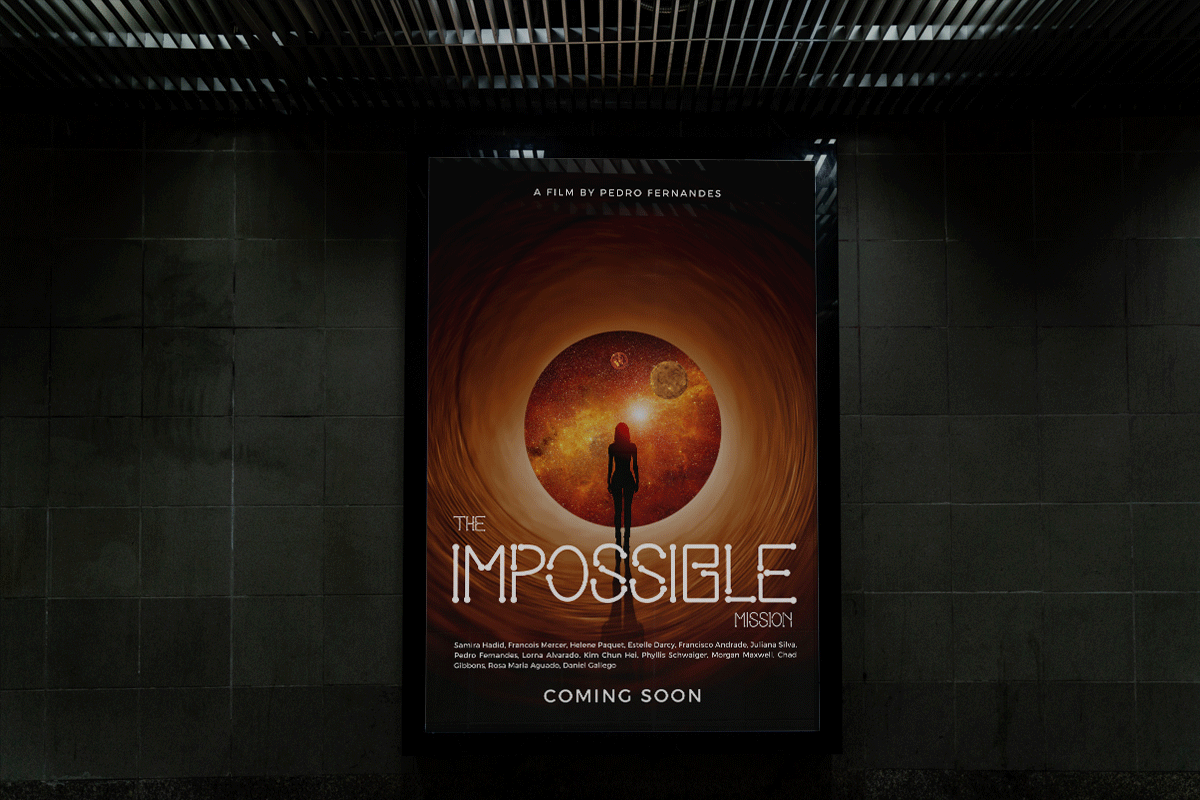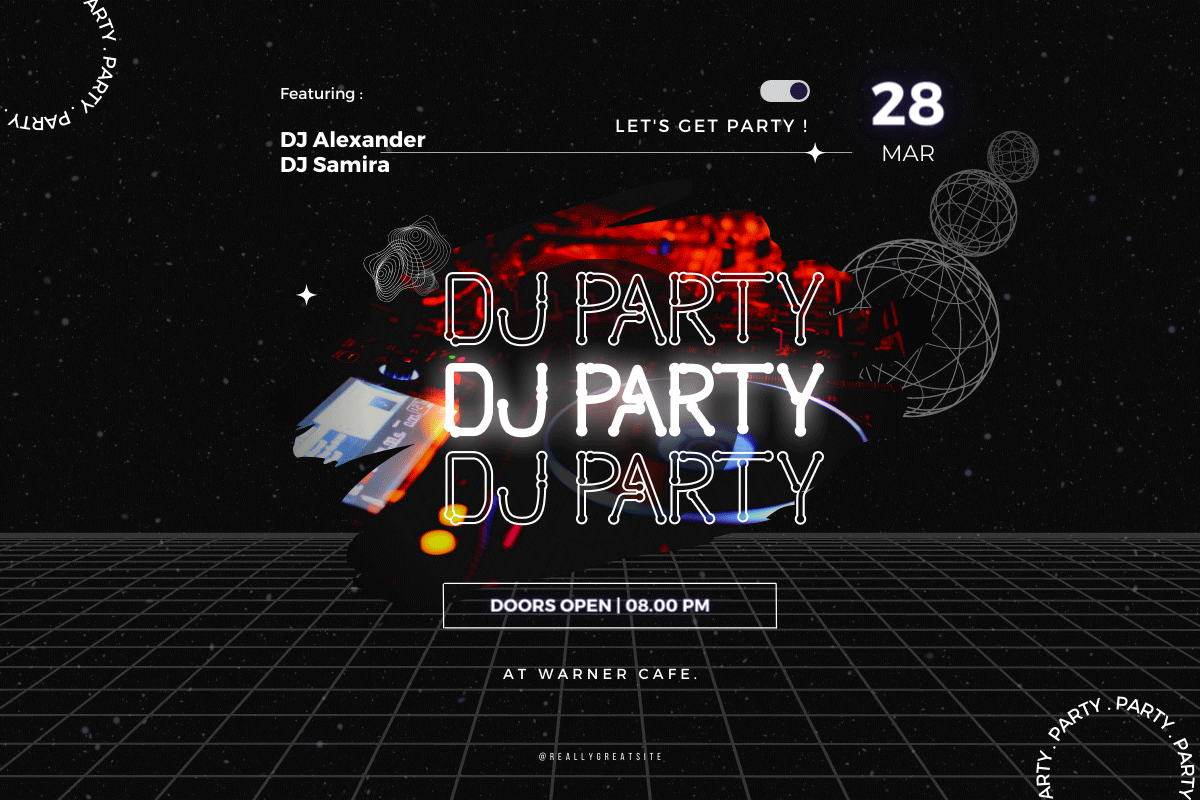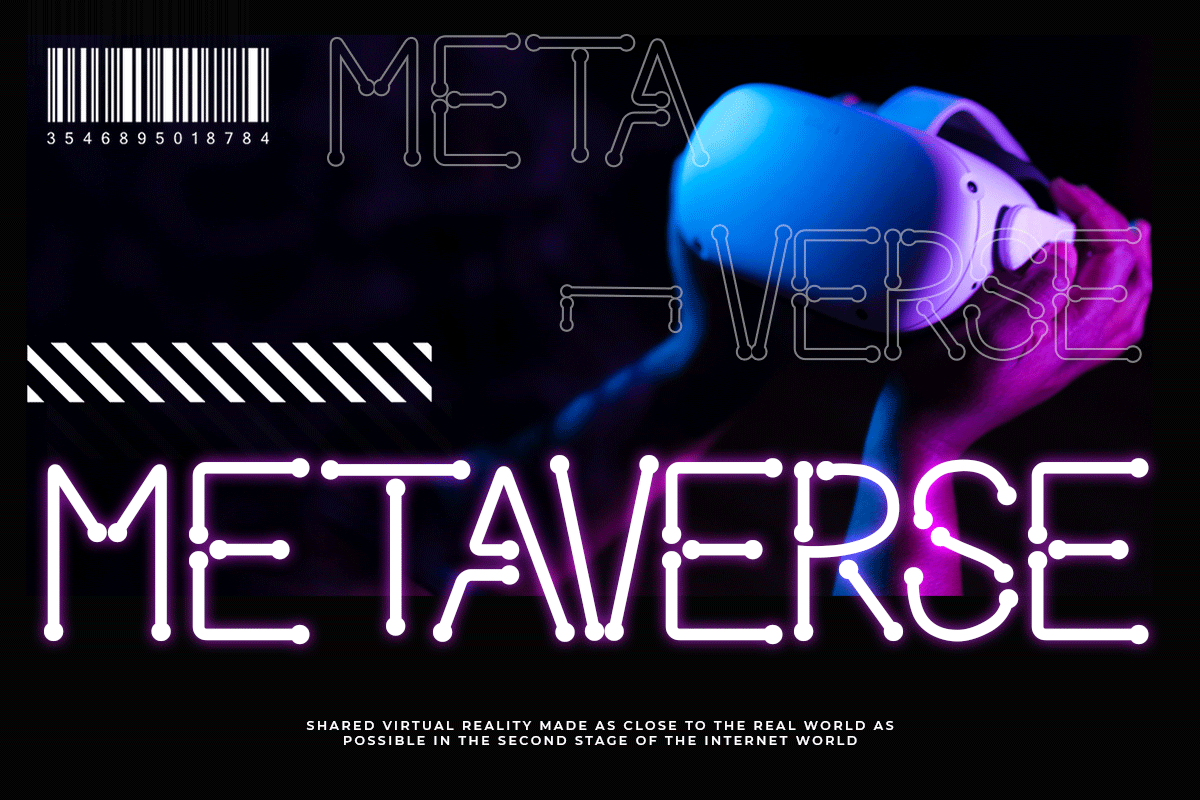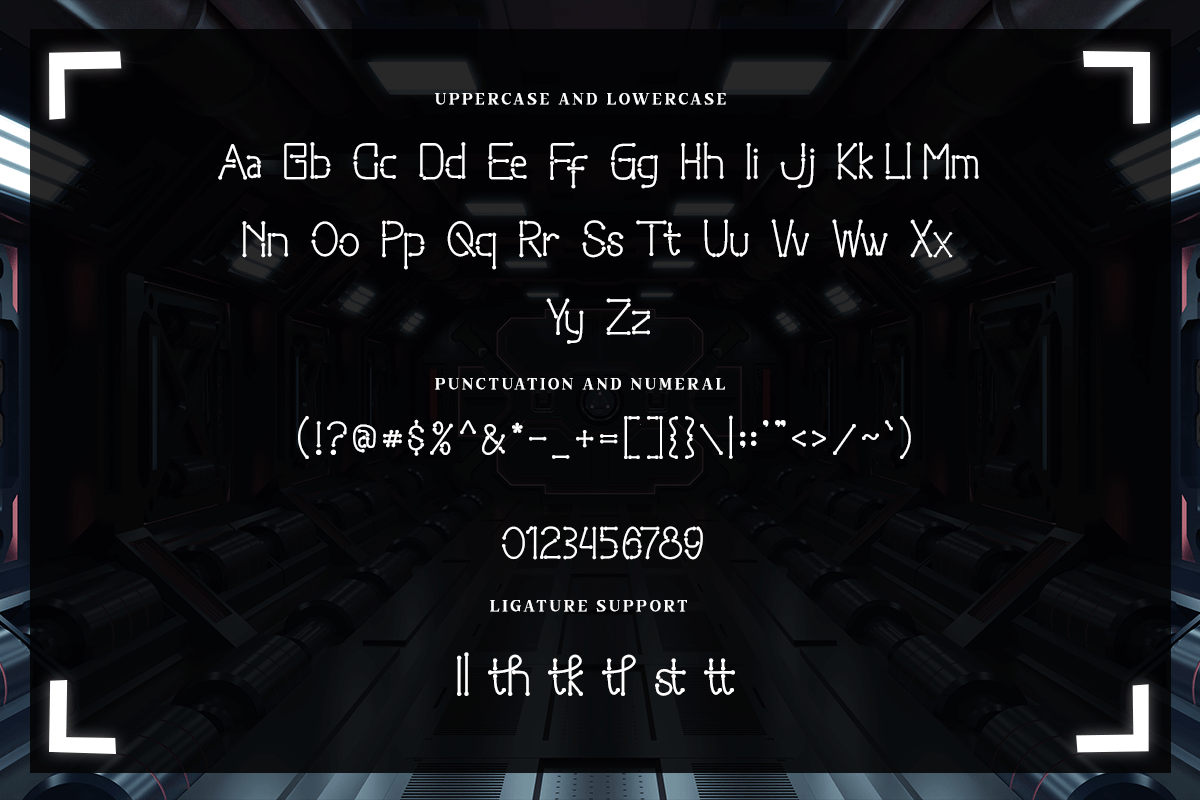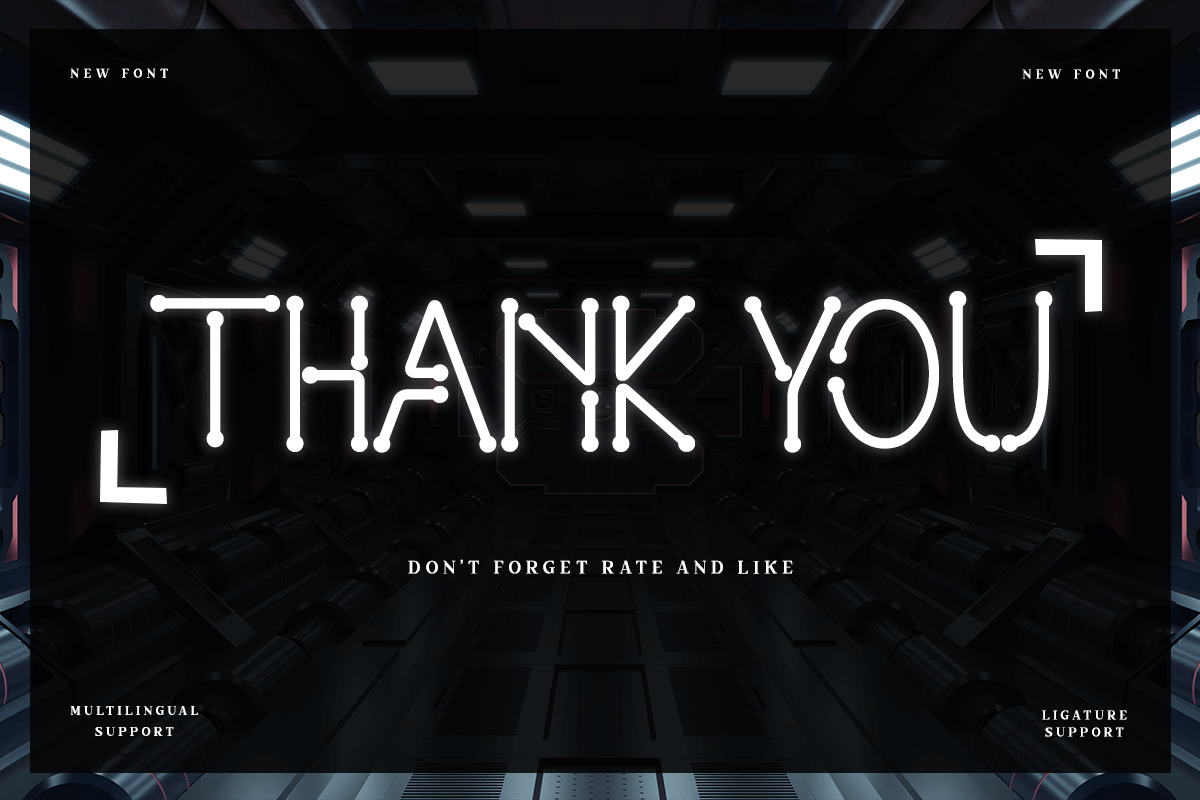
Roboprime Futuristic Font Font Kong always tries to provide the best variety of font choices that can color your day. Roboprime Futuristic font is one of the many fonts created with its uniqueness. This font is one of the legible fonts. Where it can be differentiated easily between letters. The font was created with a bone-like structure. It has an upright shape and a circle at the end. Roboprime's appearance, which is like an arrangement of bone fonts, can be one of its characteristics. If we pay close attention to these characteristics, Roboprime Futuristic font is the best font that can be used for a mystery story title, both the film title and the cover of a storybook/ novel. And what's no less interesting, it can be applied as a digital font and print font. For example, it can be used as a poster for a festive party event. Products that use the Roboprime Futuristic font as a compliment, of course, also have their uniqueness and display their impression. It is looked at as a modern font that is very unique and attractive. It can also be called a cool font. It is proposed that it will have a role in strengthening the branding of a product. Our display and decorative collection are compatible to use as Figma fonts, Canva fonts, Freepik Fonts, and Adobe Fonts. They also work as Windows Fonts, and Apple Fonts. For your social media needs, you can use and install fonts in our collection of display and decorative typography to use as Instagram Fonts, Facebook Fonts, and Twitter Fonts.